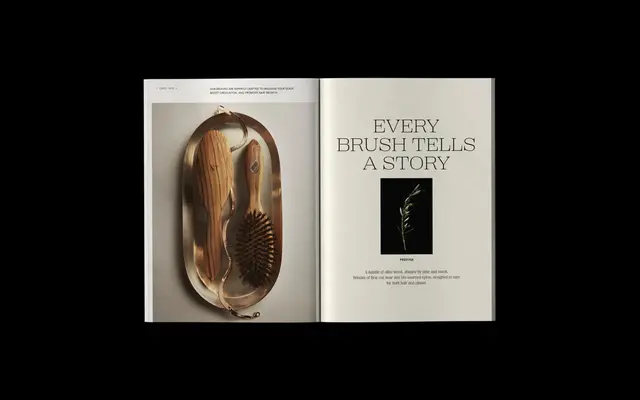
PP Right Serif
Pangram Foundry · Alex Slobzheninov · 2022
PP Right Serif specimen from Pangram Foundry
A 56-style contemporary serif by Alex Slobzheninov, drawn by adding serifs to Right Gothic rather than reviving a historical model.
Right Serif is a 56-style serif by Alex Slobzheninov, built as seven weights across seven widths plus a dedicated Italic family. It originated as a sans, growing serifs onto Right Gothic, which is why it carries a moderate contrast, tall x-height and the broad style coverage more typical of a grotesque. Most useful at large and medium sizes, with regular cuts that hold up in smaller paragraphs.
Pangram tags it Display, Italics, Serif, Variable. Eight subfamilies of seven styles each, 56 styles total. Drawn by adding serifs to Right Gothic, inheriting moderate contrast, a tall x-height and grotesk-style style coverage rather than a classical revival lineage.